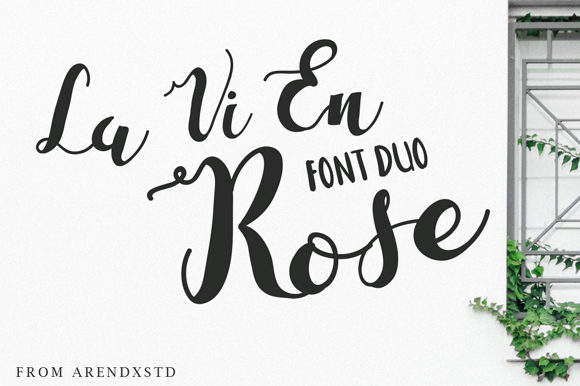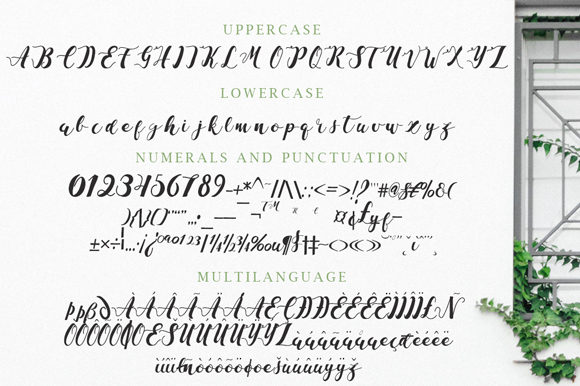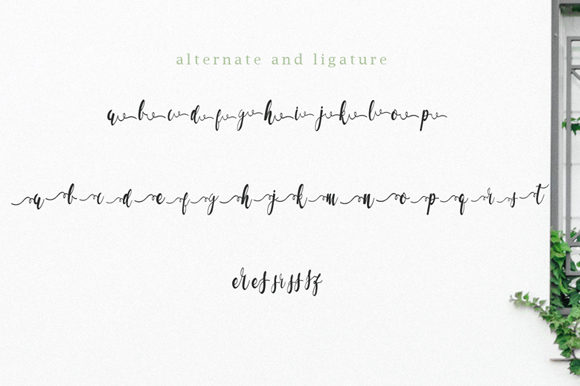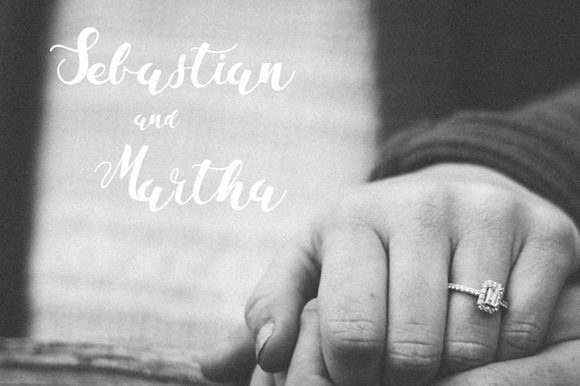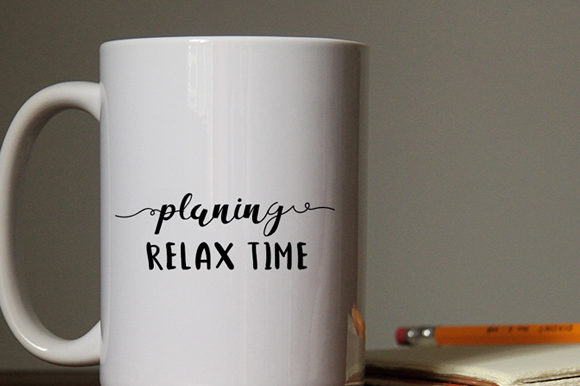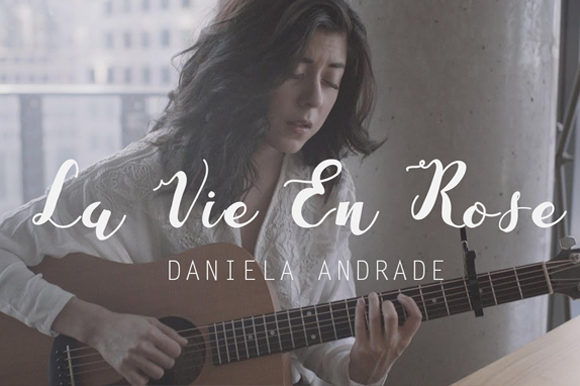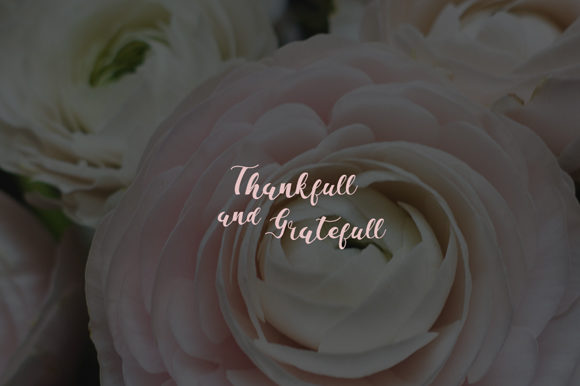
La Vi En Rose Font
About La Vi En Rose Font
La Vi En Rose is a stunningly romantic and delicate font with a charming twist. It will turn any design project into a true stand out!